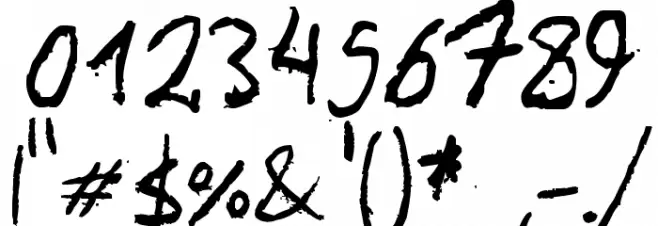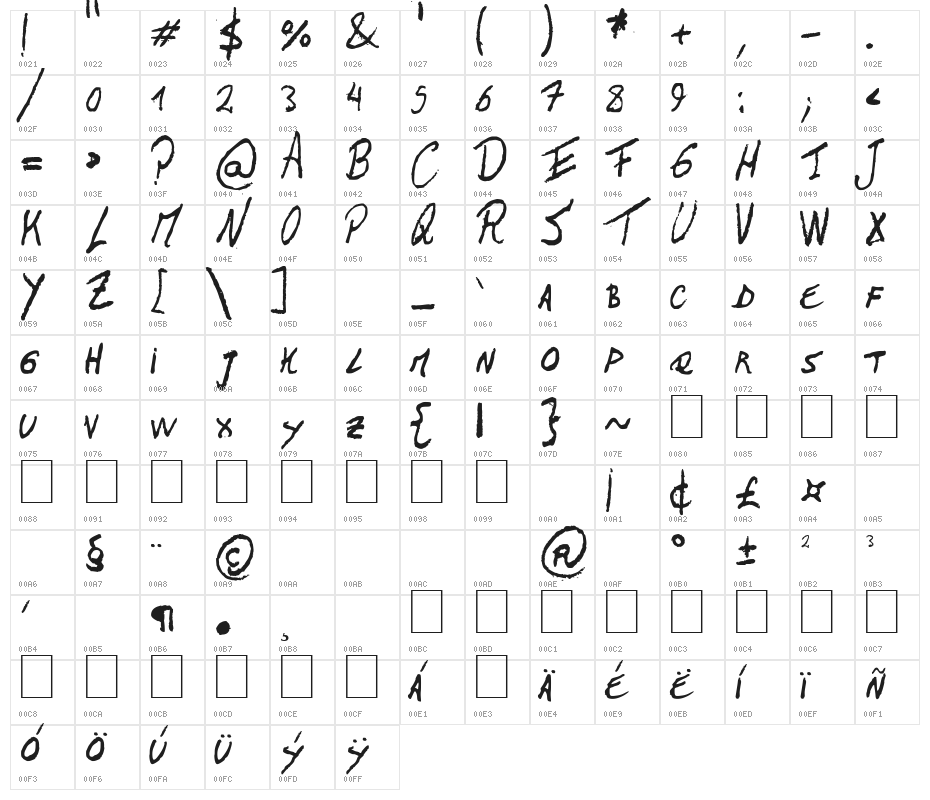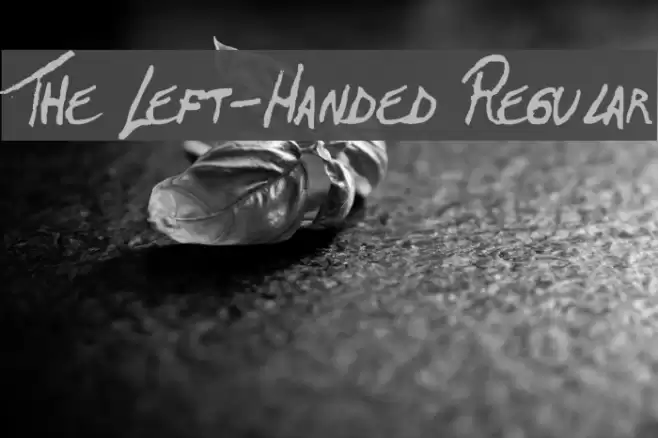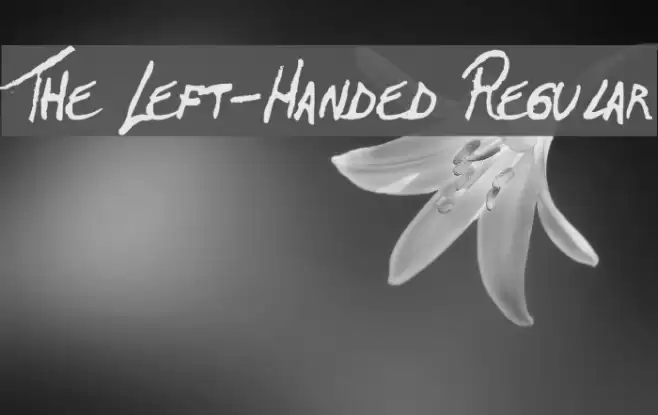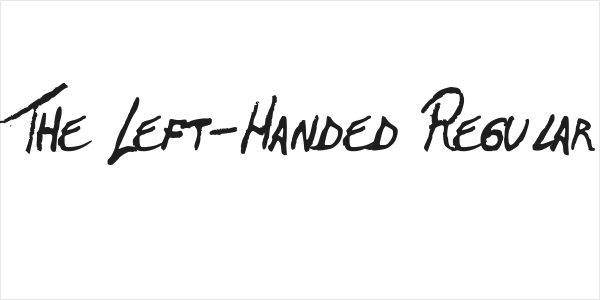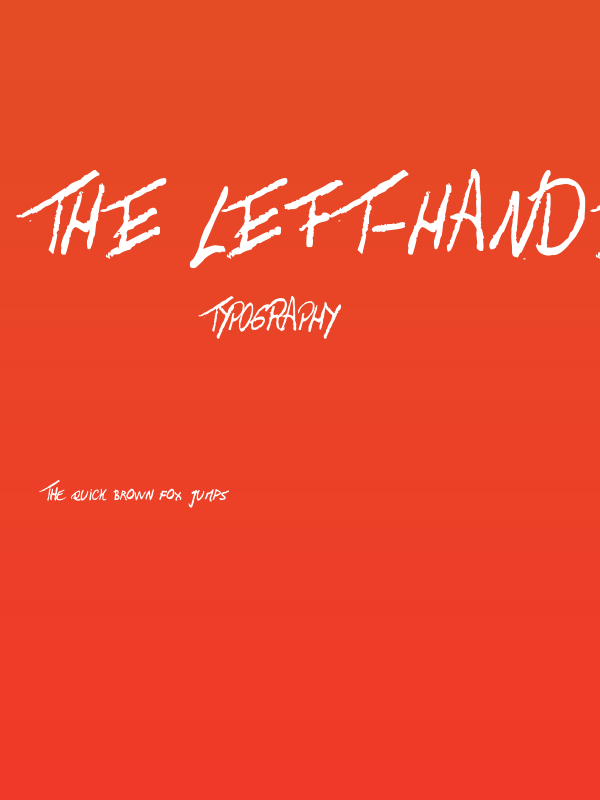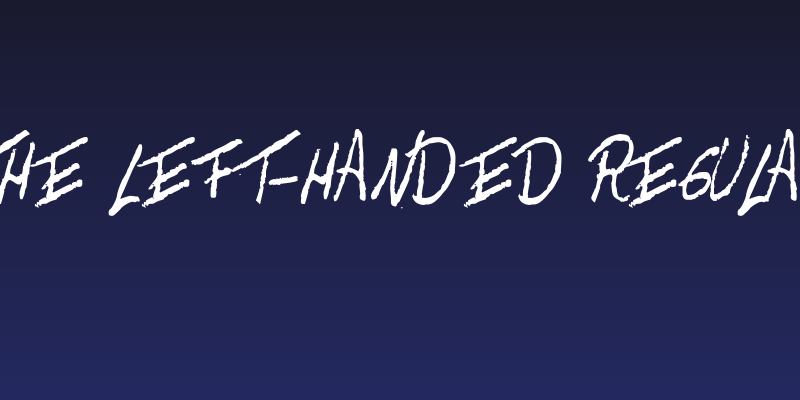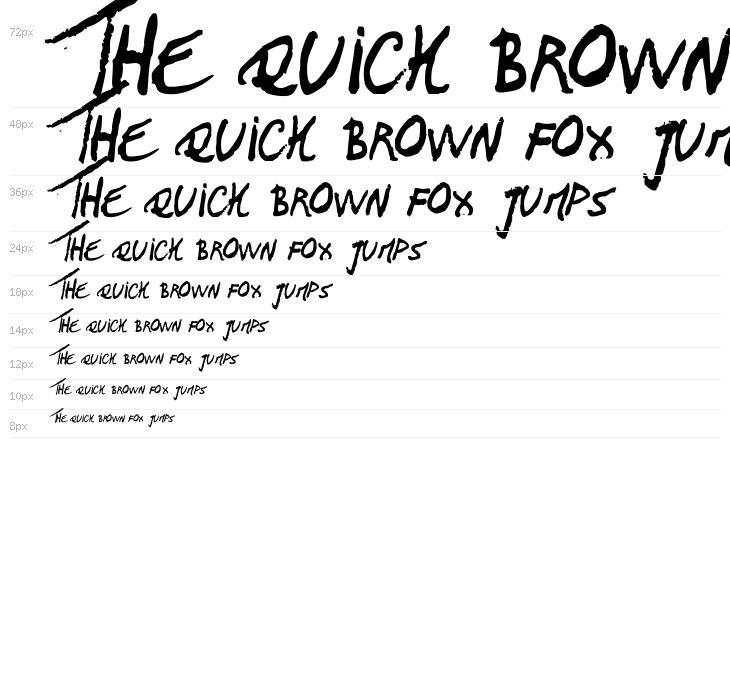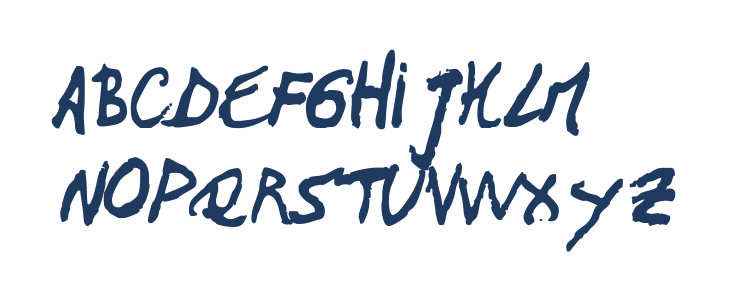
The Left-Handed Regular Font
The Left-Handed Regular Description
This font exudes a raw, expressive style reminiscent of handwritten notes with a bold, artistic flair. The characters are unevenly weighted, giving them a dynamic and spontaneous appearance. The strokes are thick and varied, with a rough texture that suggests a hand-drawn quality. Each letter has a unique form, contributing to the overall organic and informal feel. The uppercase and lowercase letters maintain a consistent style, while the numbers and special characters blend seamlessly into the design. This font captures the essence of creativity and individuality, making it ideal for projects that require a personal touch.
Use CaseLogos, Headlines, Creative projects
Proposed ProjectsIdeal for artistic projects, personal branding, creative posters, and informal invitations.